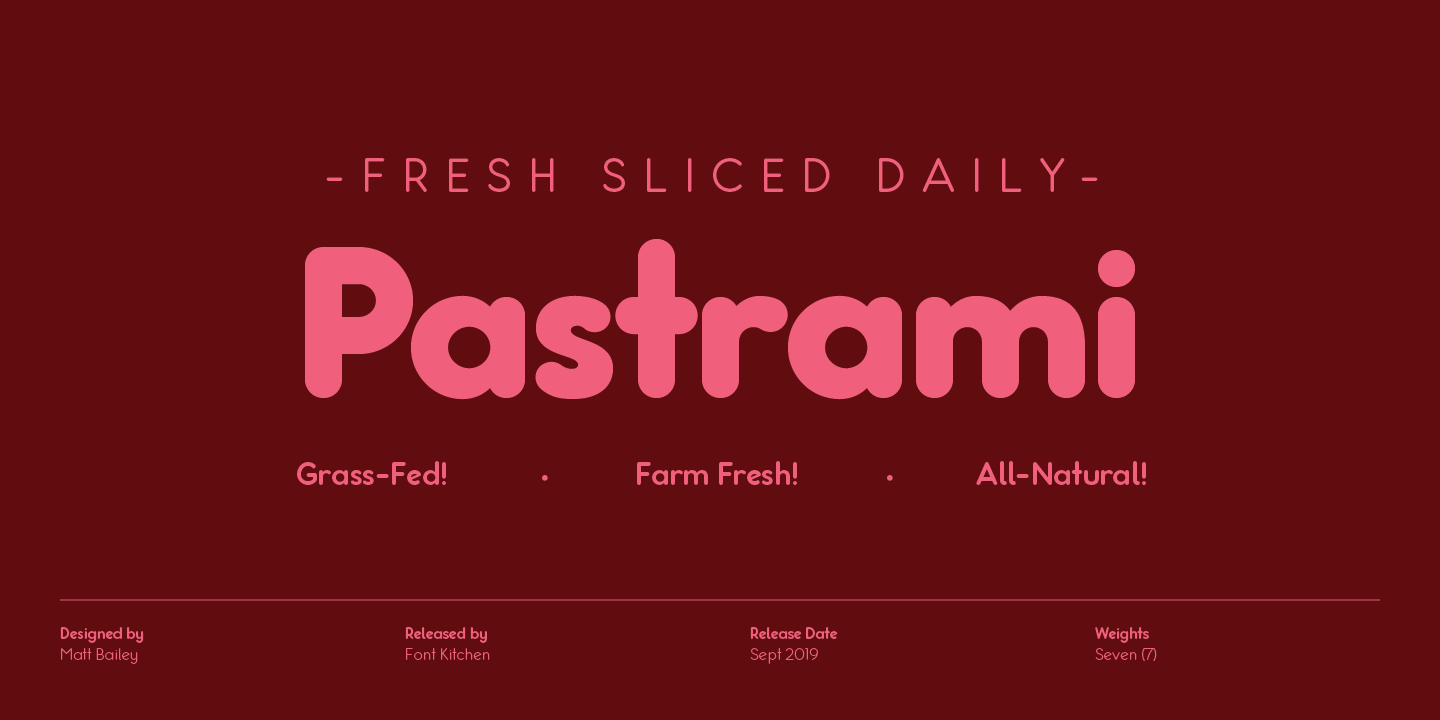
The Pastrami Font is ideal for delicatessen branding, vintage diner signage, classic sandwich shop menus, traditional New York eatery designs, retro food packaging, nostalgic restaurant materials, authentic Jewish deli graphics, and old-school culinary advertising. This flavorful typeface excels in projects for delicatessens, ethnic restaurants, food trucks, vintage diners, and businesses seeking to capture the hearty, authentic spirit of traditional American deli culture and comfort food heritage.
What makes the Pastrami Font exciting is its delicious embodiment of classic deli culture with hearty character and old-world authenticity. The font features robust letterforms with traditional proportions and nostalgic details that immediately evoke the warm atmosphere of neighborhood delicatessens and family-owned eateries. Its appetizing character and cultural heritage make it perfect for food businesses wanting to establish trust, tradition, and mouth-watering appeal. The font's comfort food personality and authentic charm create immediate connections with customers seeking genuine culinary experiences.
The Pastrami Font family includes appetizing variations: Light Slice, Regular Cut, Bold Thick, Heavy Stack, Vintage Deli, and Classic versions. Each style maintains the font's delicious character while offering different visual weights and traditional styling options for diverse food service applications. The family also features culinary symbols, deli ornaments, traditional Jewish elements, and food-themed decorative details that enhance authentic restaurant design projects.
Whether you're developing deli brand identities, creating traditional food marketing materials, or designing nostalgic culinary campaigns, the Pastrami Font Free Download provides the perfect solution for projects requiring authentic deli typography. This exceptional typeface brings genuine comfort food culture to design work, making it an essential resource for designers celebrating traditional cuisine, family recipes, and the timeless appeal of neighborhood delicatessen heritage.